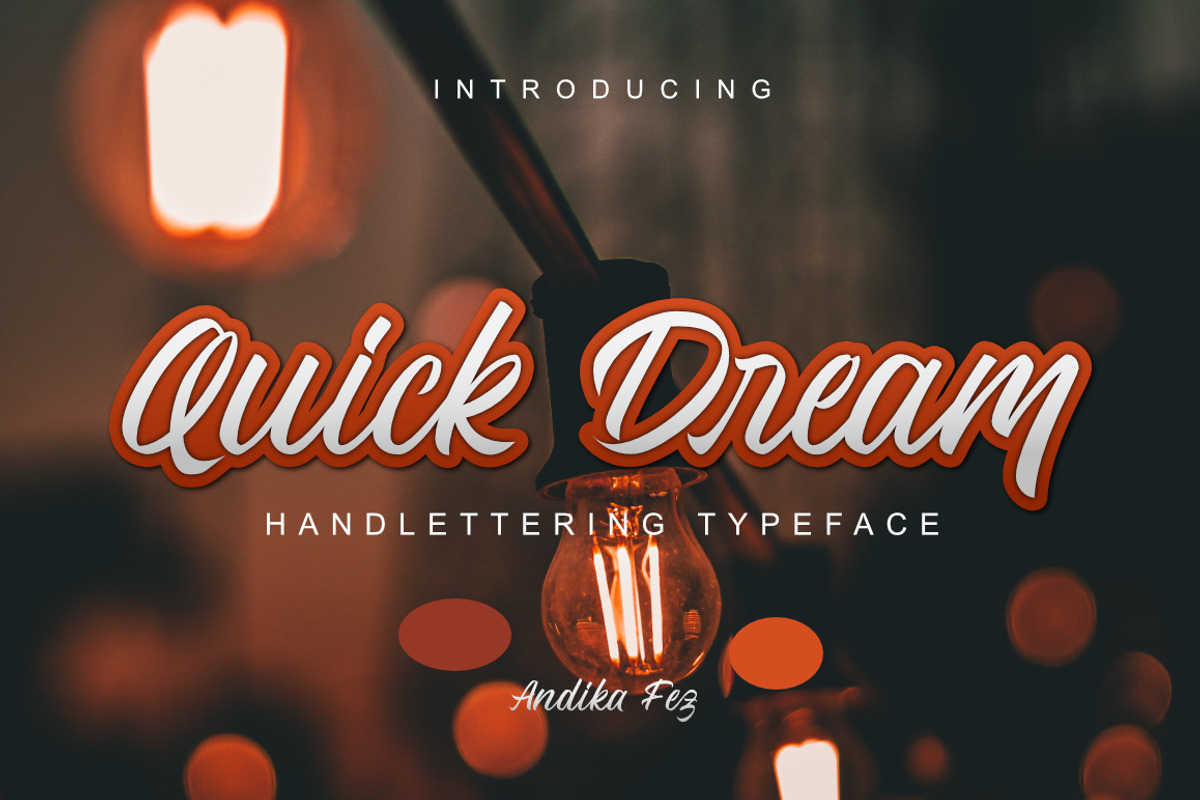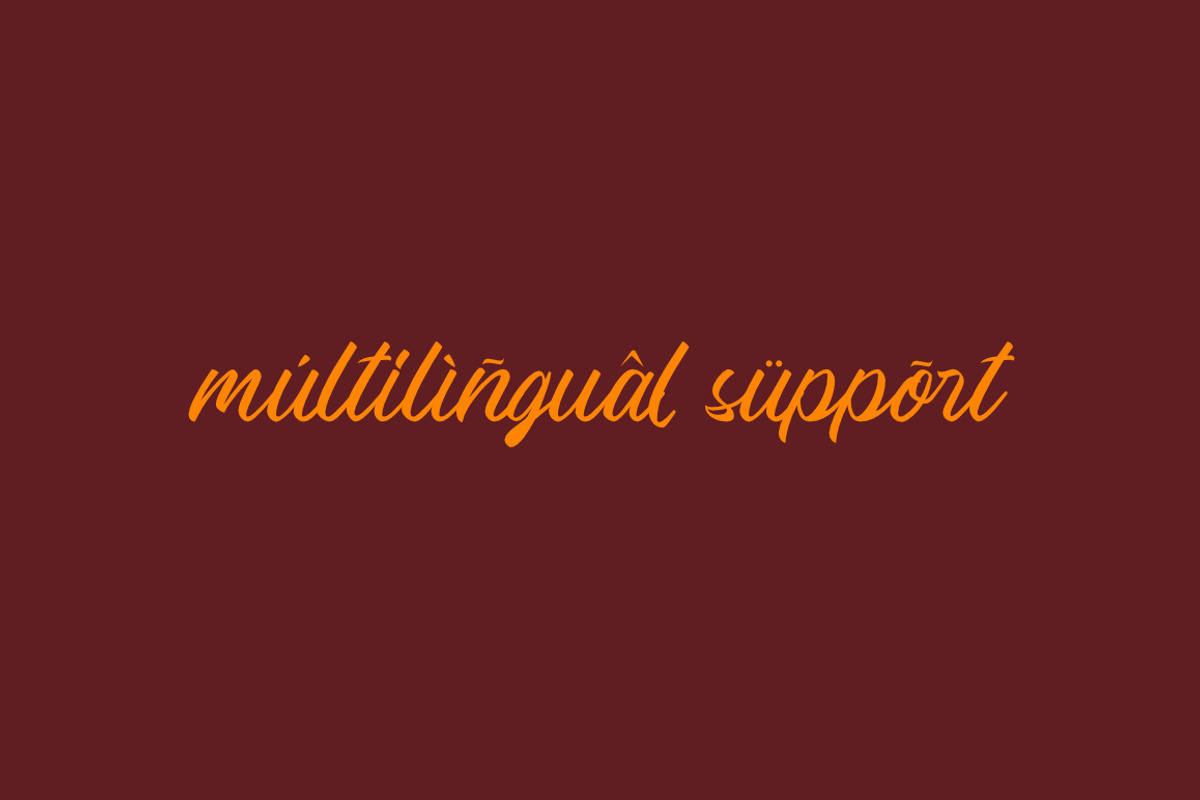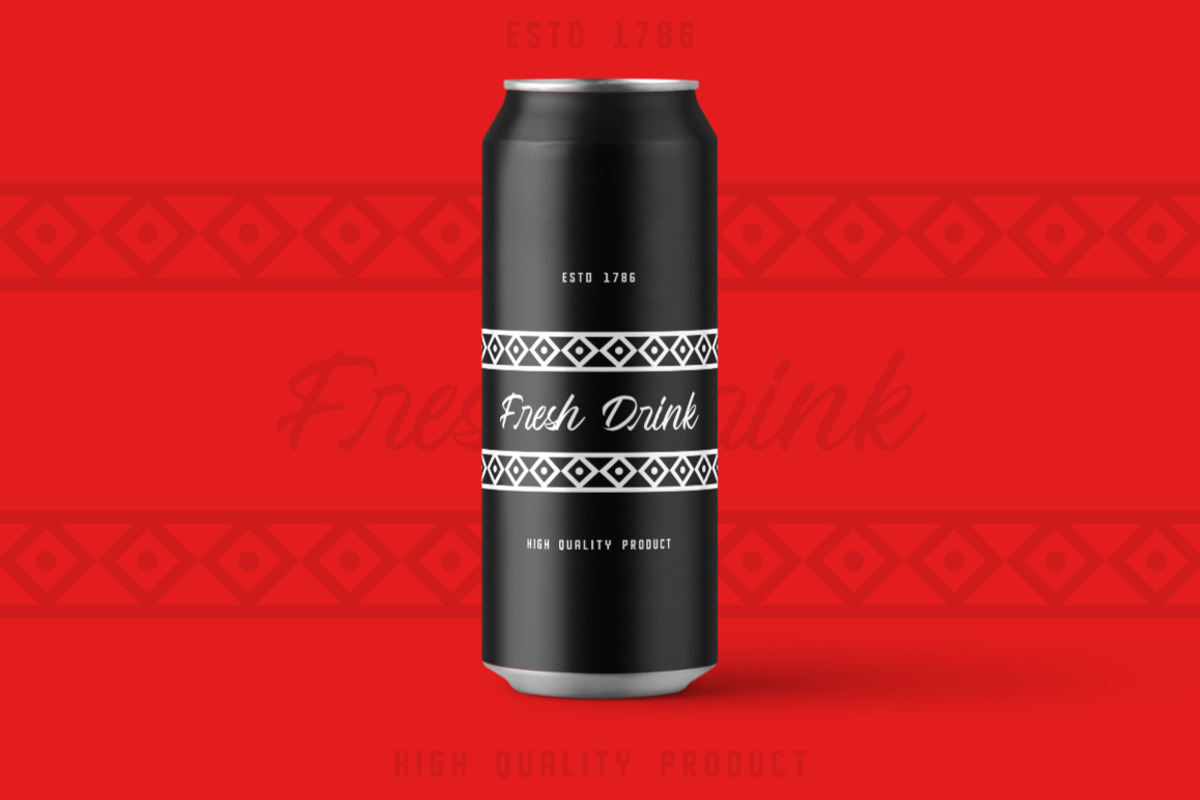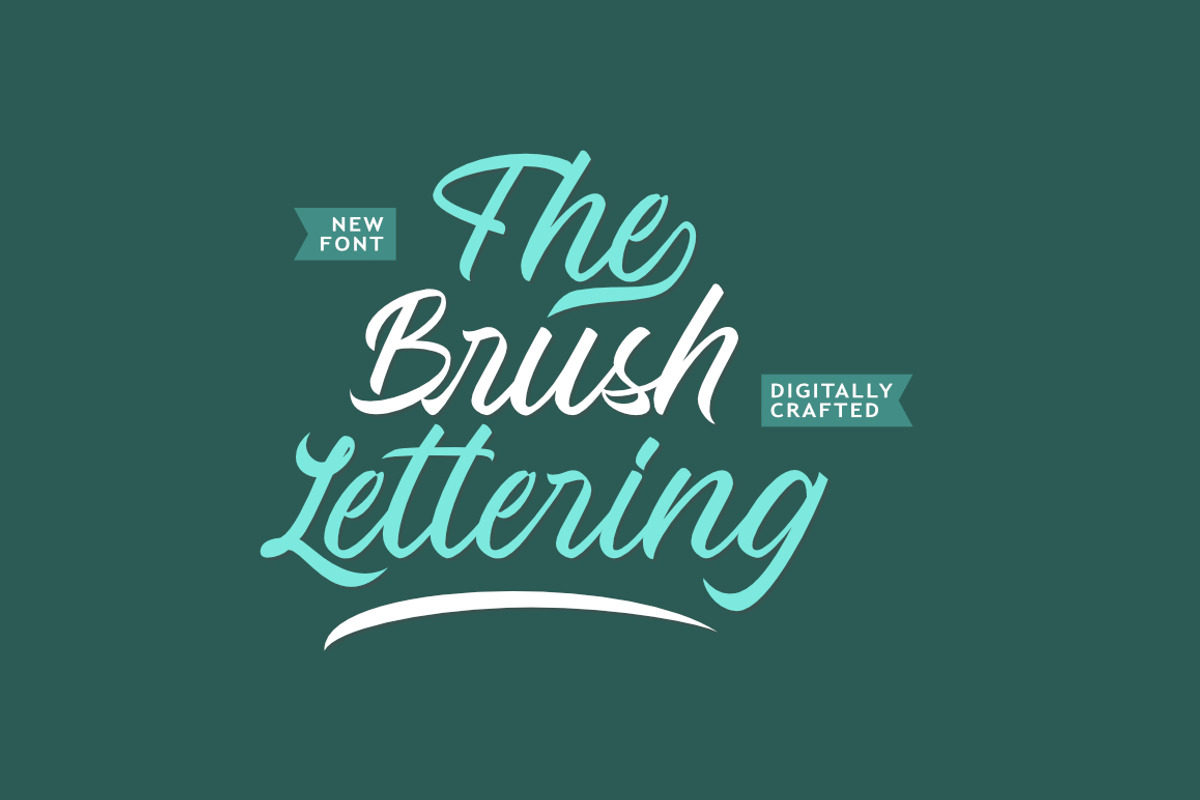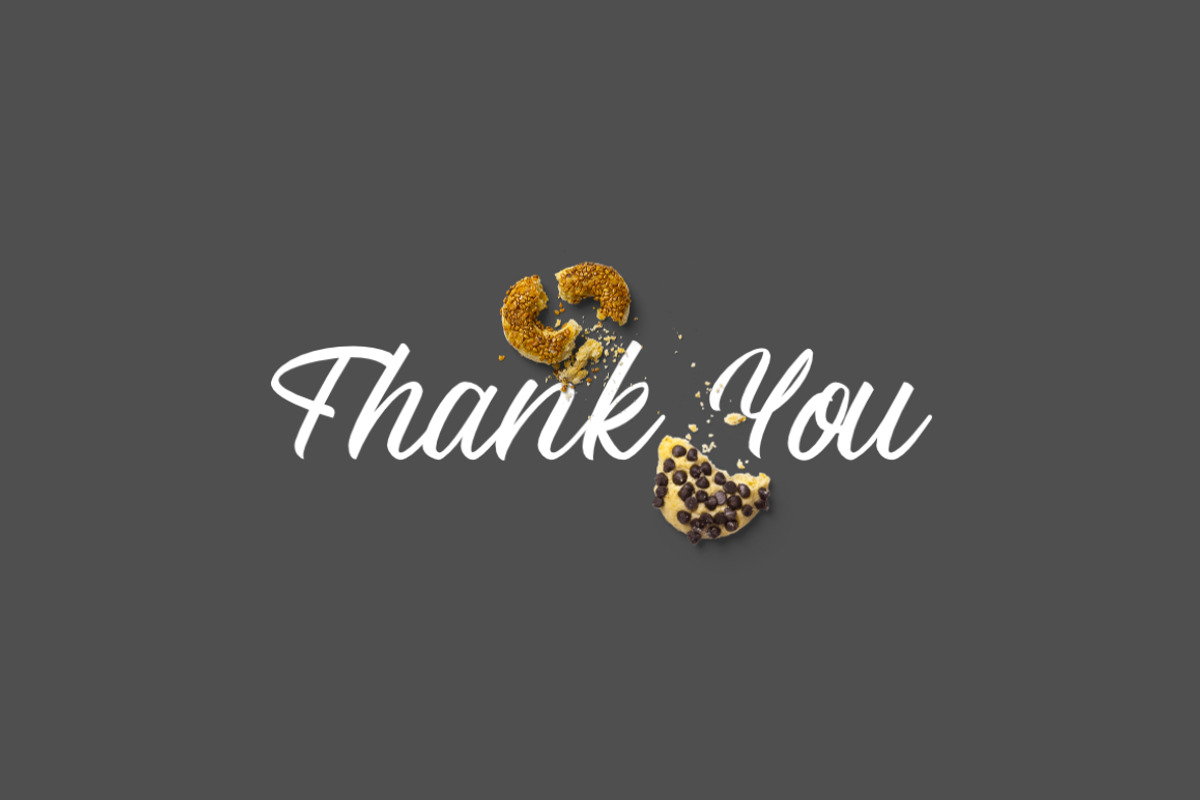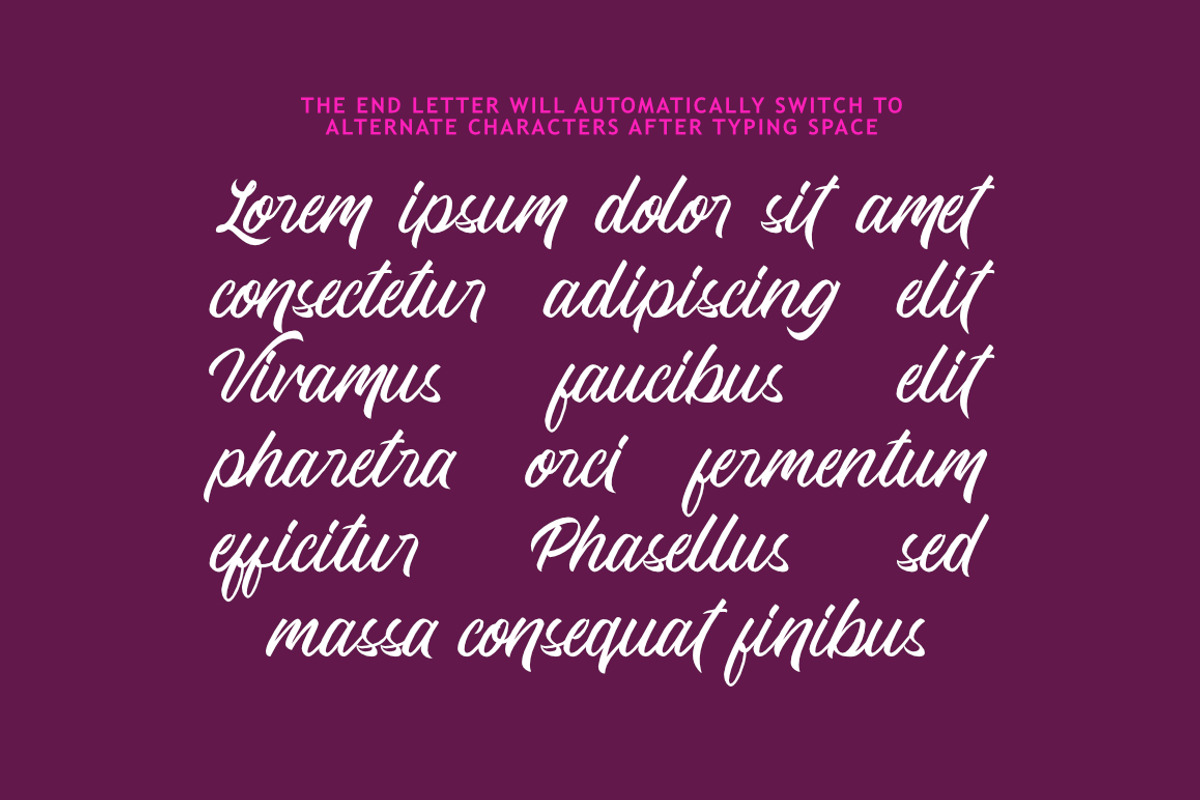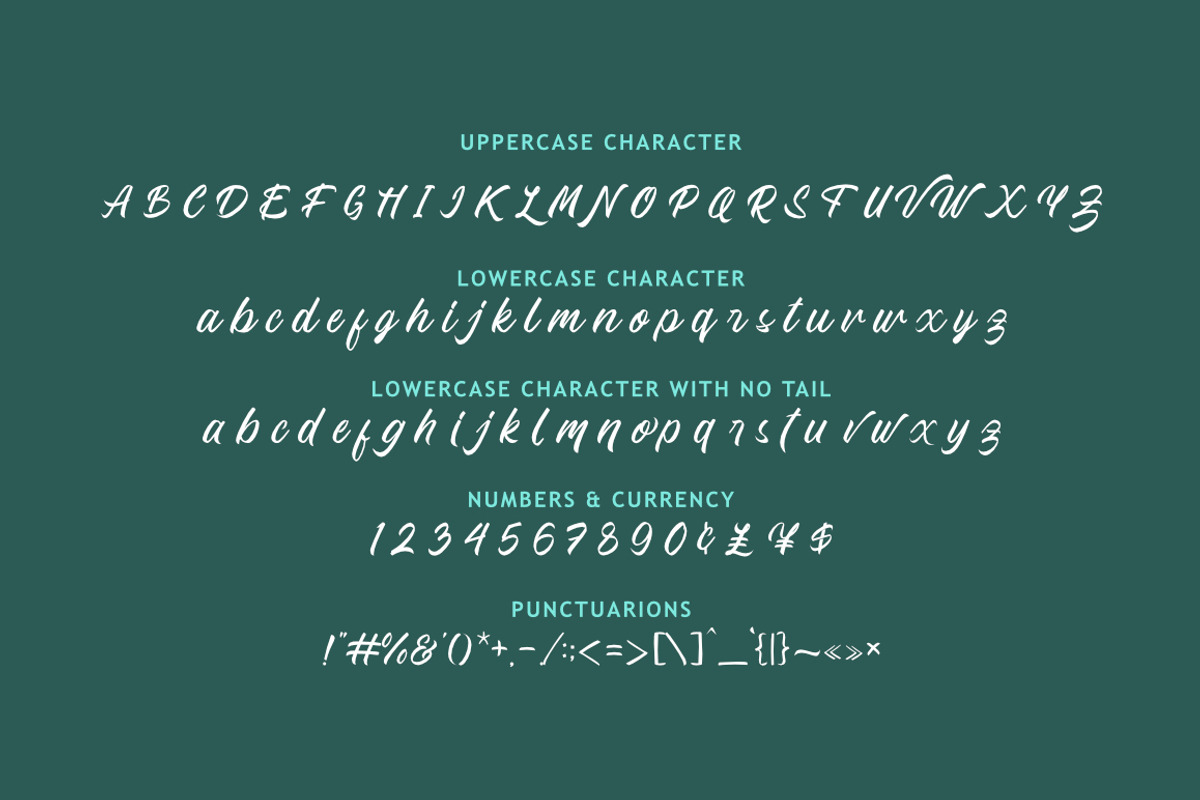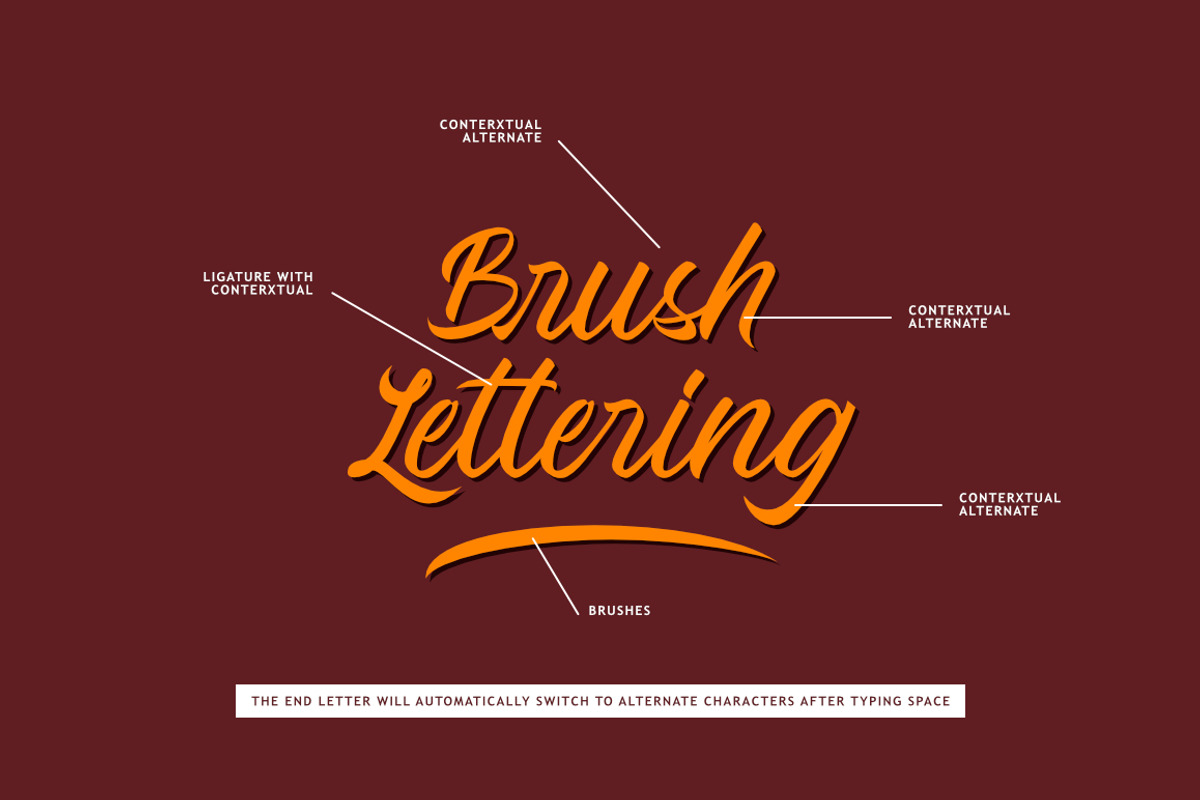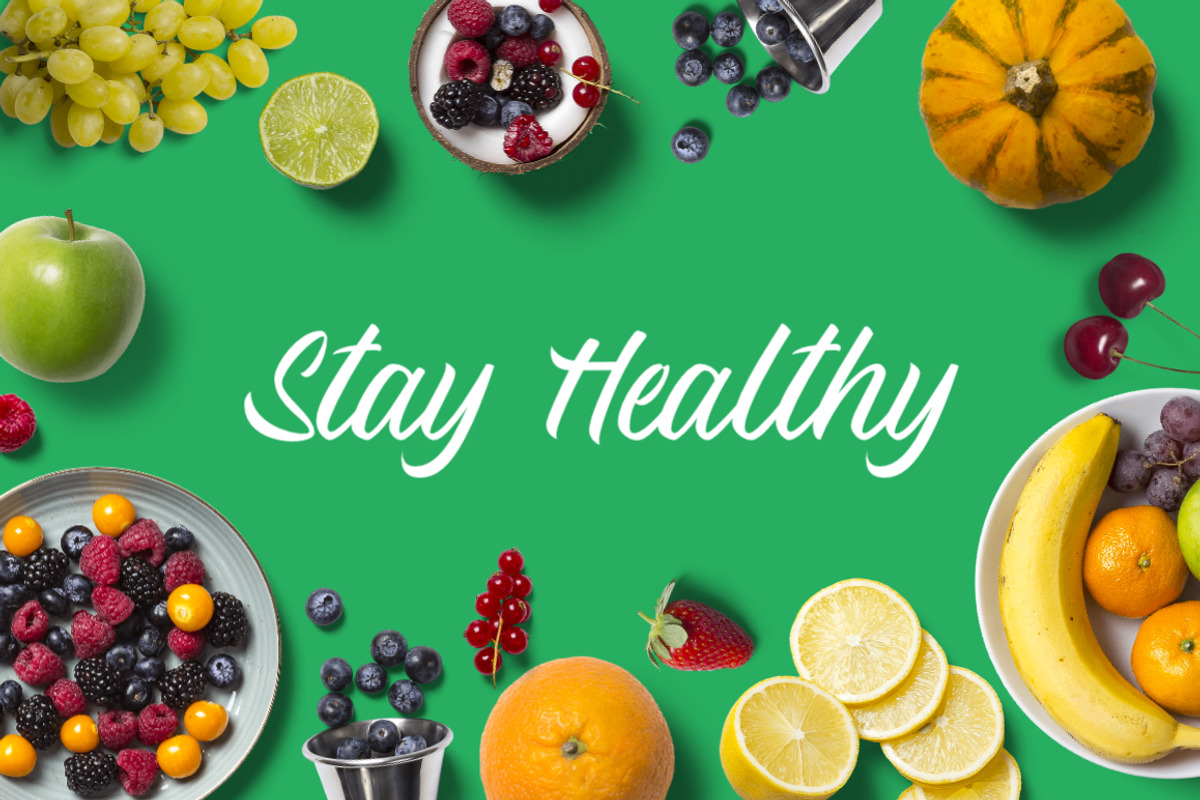
Quick Dream
Quick Dream is a handlettering typeface that carefully crafted, It is a beautifull typeface that been needed by people off course with a friendly deal.
Quick Dream is really suits for you that need for graphics needs like logo design, advertising, packaging, product launching, video title, promotion media and many more.
- a-z A-Z characters
- Punctuations
- Numeral
- Open Type feature like alternate, ligature, contextual